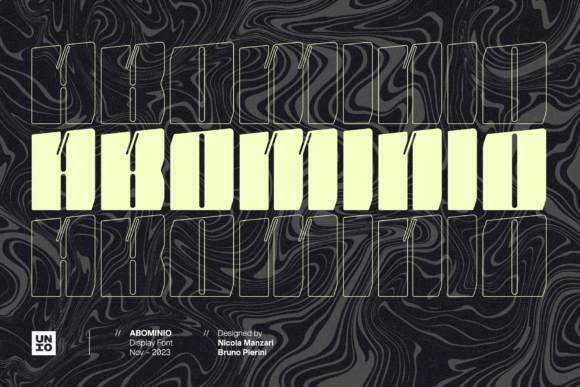
Introducing Abominio Font: A Bold and Captivating Display Typeface
In the world of typography, a new font has emerged that is sure to turn heads and capture attention. Abominio is a unique and innovative display typeface that embodies the spirit of maximalism culture. With its bold and experimental design, this font is perfect for consumer-oriented designs that need to stand out in a crowded market.
The Design of Abominio
Abominio features an innovative design of recurring chiseled forms that give it a distinctive and captivating appearance. The font’s bold and chunky letters are carefully crafted to grab the attention of easily distracted viewers and hold it for a few more vital seconds. The design of Abominio is a perfect blend of modernity and experimentation, making it an excellent choice for designers who want to push the boundaries of creativity.
Maximalism Culture and Abominio
Abominio is more than just a font – it’s a reflection of the maximalism culture that values boldness, extravagance, and creativity. This font is designed to help brands and designers create a lasting impression on their audience, making it an invaluable asset for consumer-oriented designs. With Abominio, designers can create visually stunning typography that resonates with their target audience and sets them apart from the competition.
Key Features of Abominio
- Bold and Experimental Design: Abominio’s unique design makes it perfect for grabbing attention and standing out in a crowded market.
- Recurring Chiseled Forms: The font’s innovative design features recurring chiseled forms that give it a distinctive appearance.
- True to the Latin Alphabet: Despite its experimental design, Abominio remains true to the letters of the Latin alphabet, making it easy to read and understand.
- Perfect for Consumer-Oriented Designs: Abominio is designed to help brands and designers create a lasting impression on their audience, making it an excellent choice for consumer-oriented designs.
Using Abominio in Design Projects
Abominio is a versatile font that can be used in a variety of design projects, from branding and advertising to packaging and digital design. Here are a few ways designers can use Abominio in their projects:
- Headings and Titles: Use Abominio as a heading or title font to grab attention and create a lasting impression.
- Branding and Logo Design: Abominio can be used to create bold and memorable logos that reflect a brand’s personality and values.
- Advertising and Marketing Materials: Use Abominio in advertising and marketing materials, such as brochures, flyers, and social media graphics, to create visually stunning typography that resonates with your target audience.
Abominio is a captivating display typeface that is sure to turn heads and capture attention. With its bold and experimental design, recurring chiseled forms, and true-to-the-Latin-alphabet approach, Abominio is perfect for designers who want to push the boundaries of creativity and create a lasting impression on their audience. Whether you’re a designer, craftsperson, or simply someone who appreciates great typography, Abominio is definitely worth checking out.